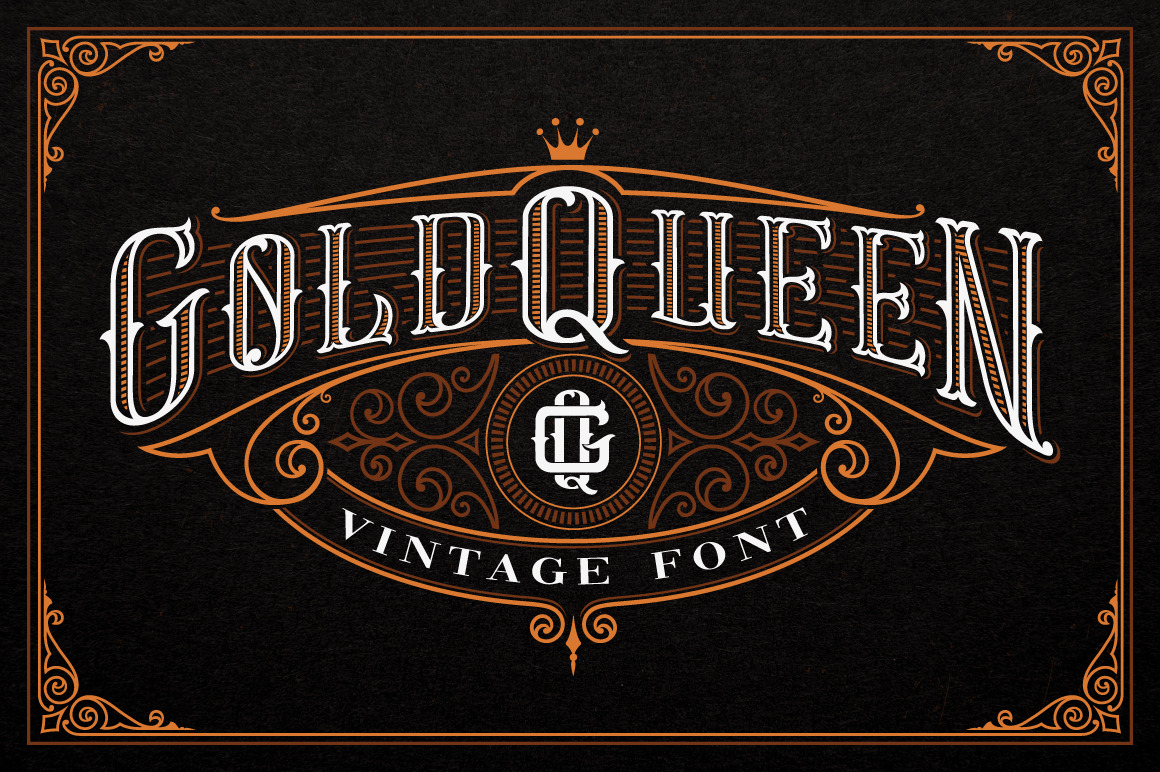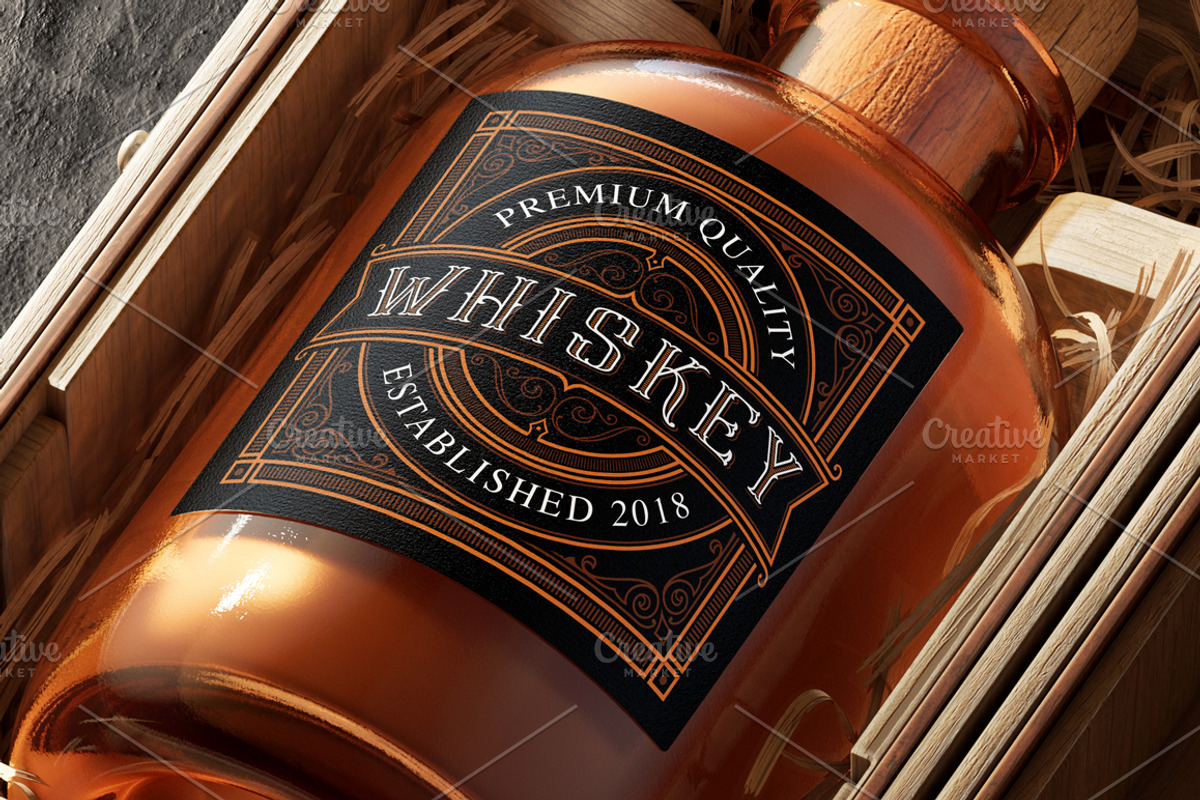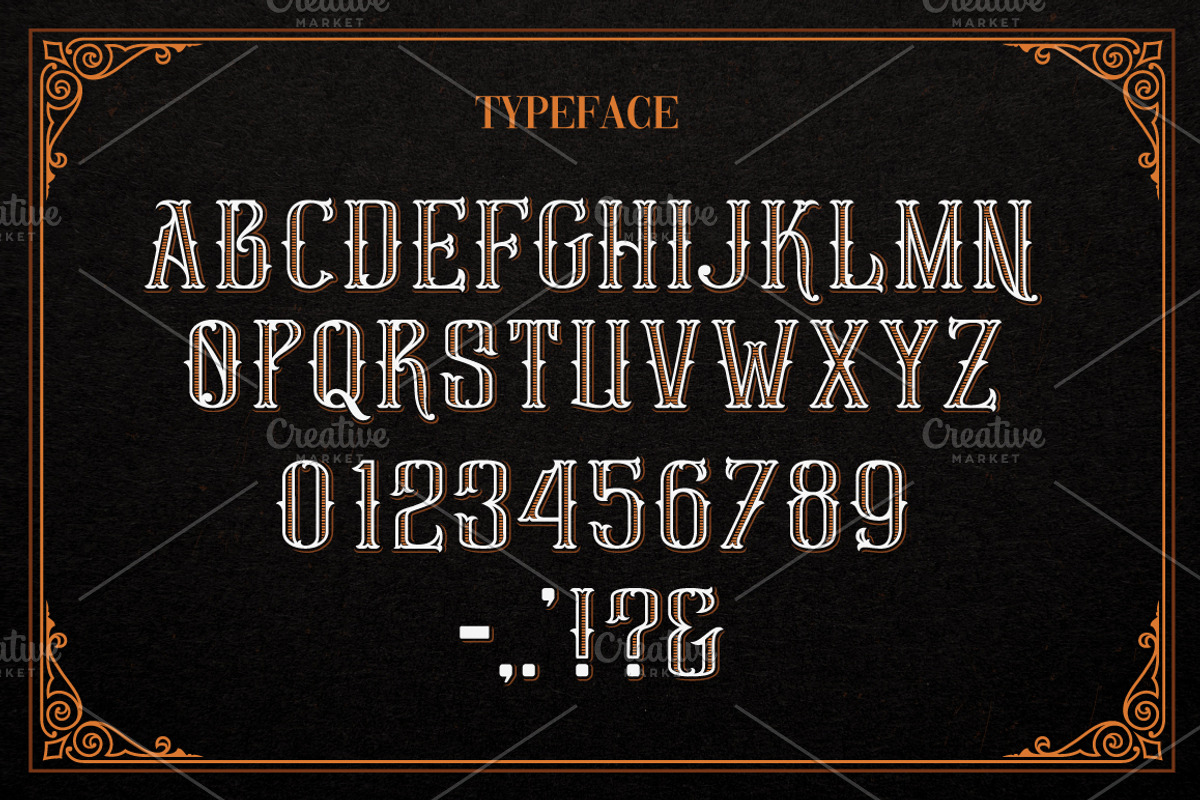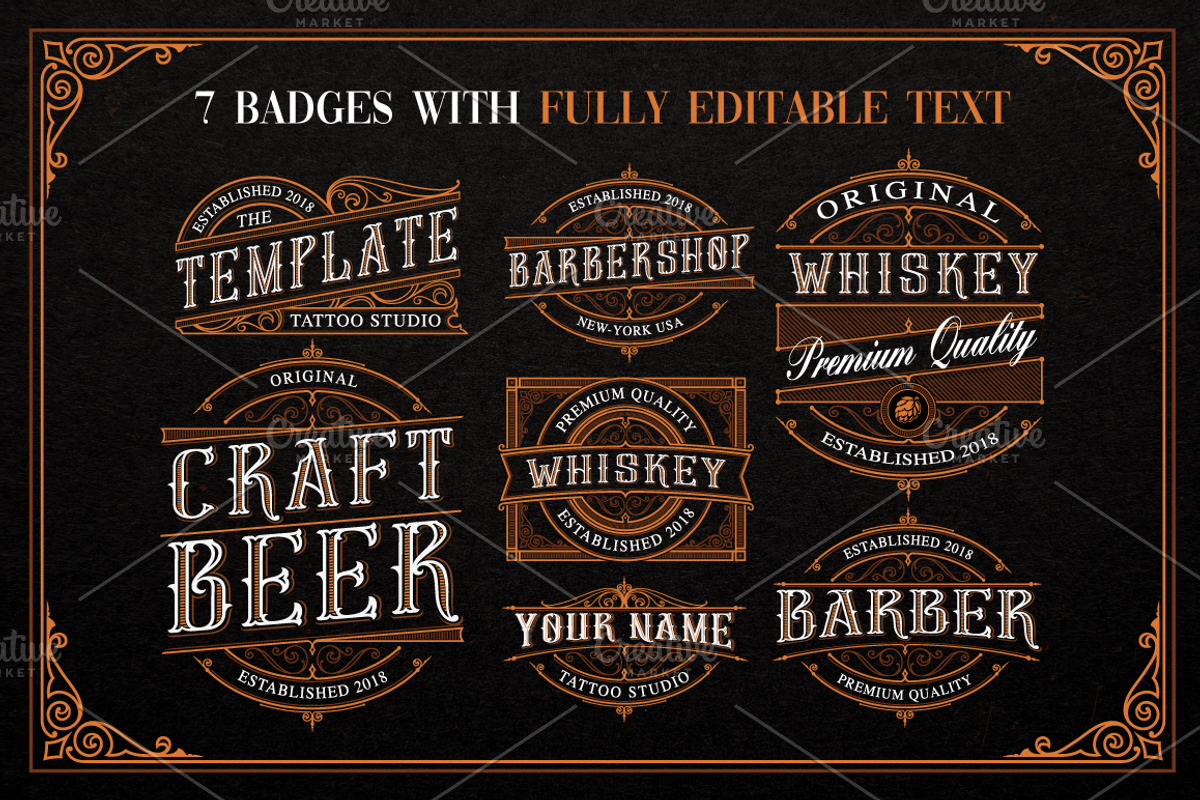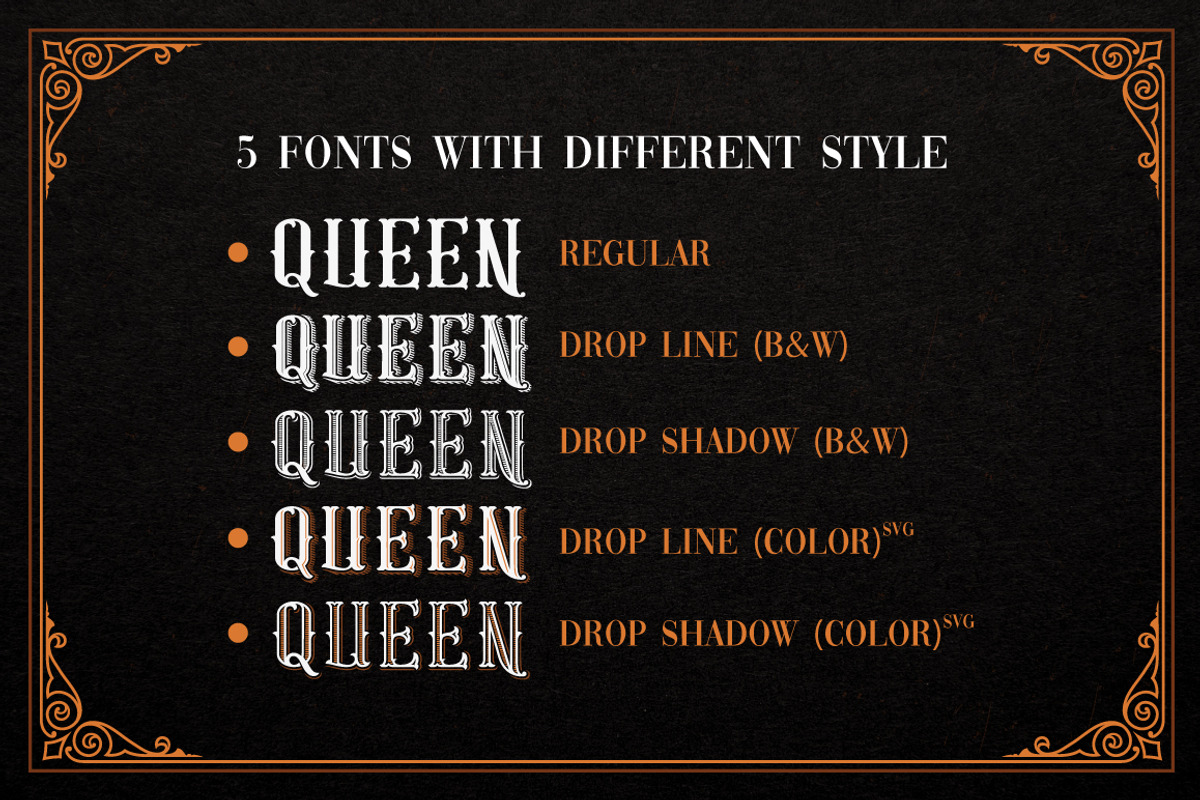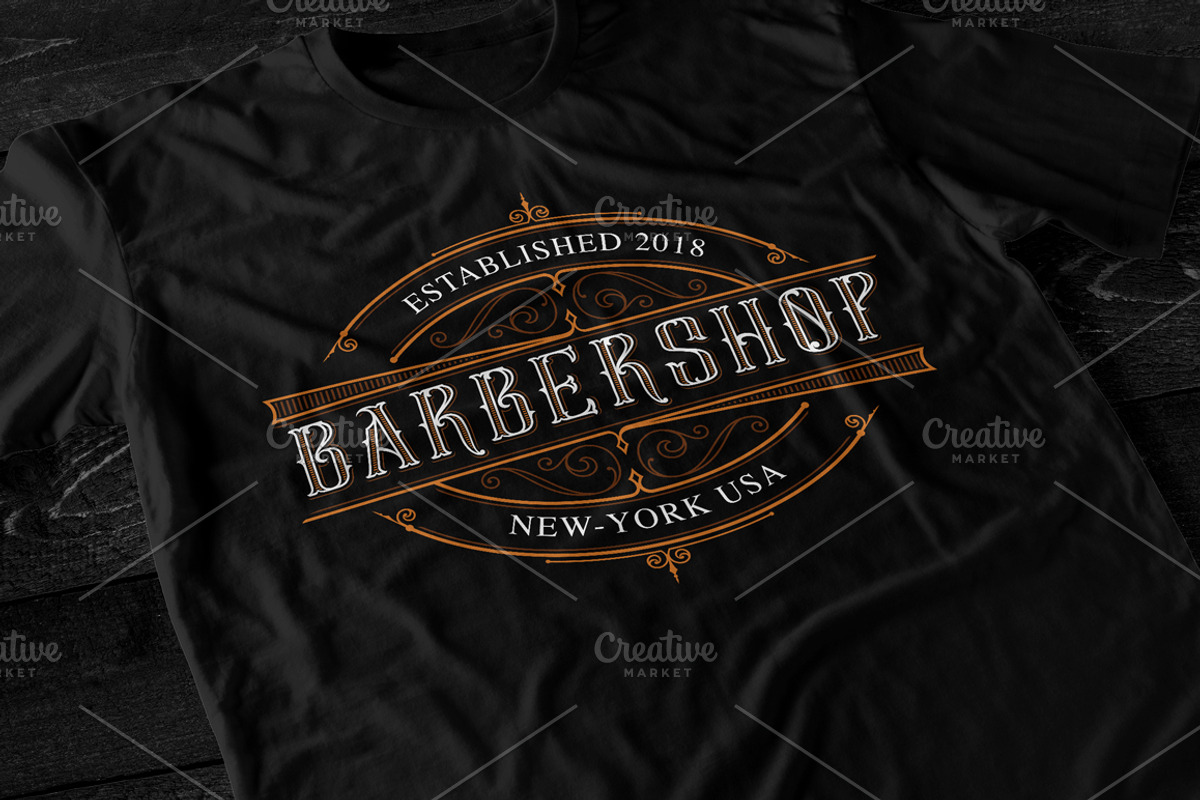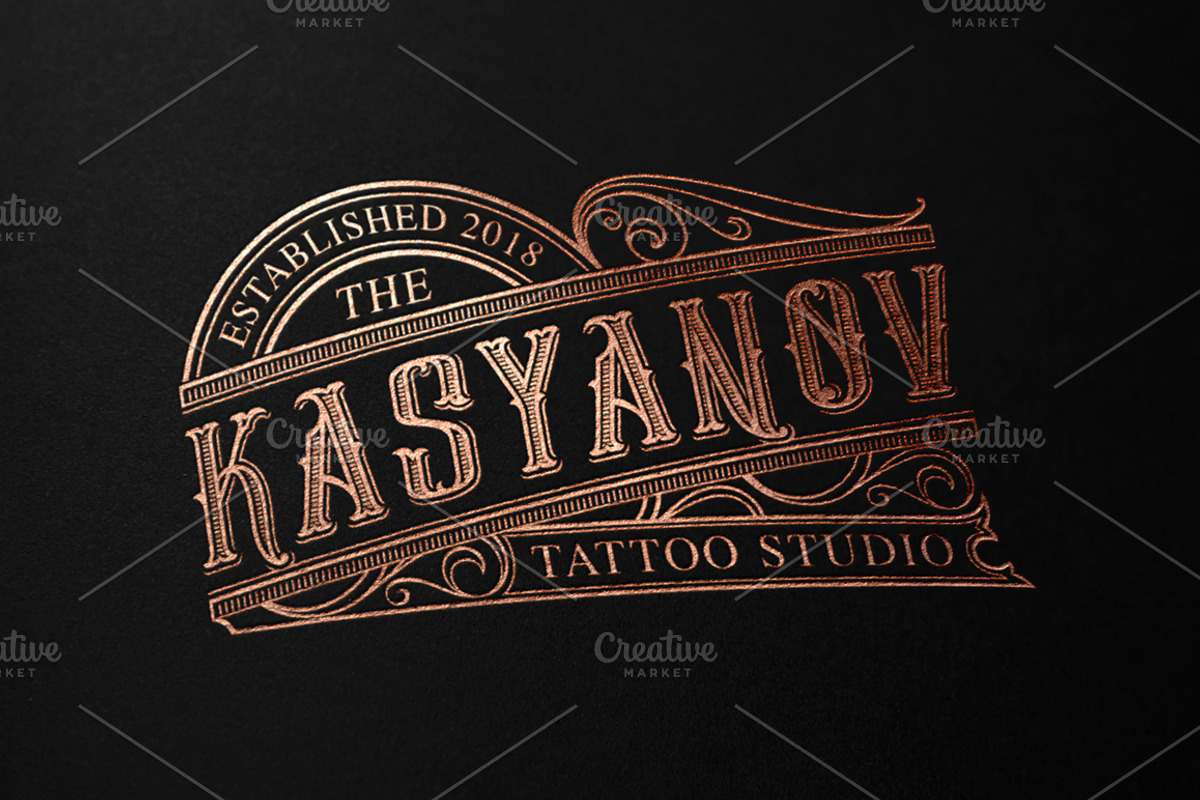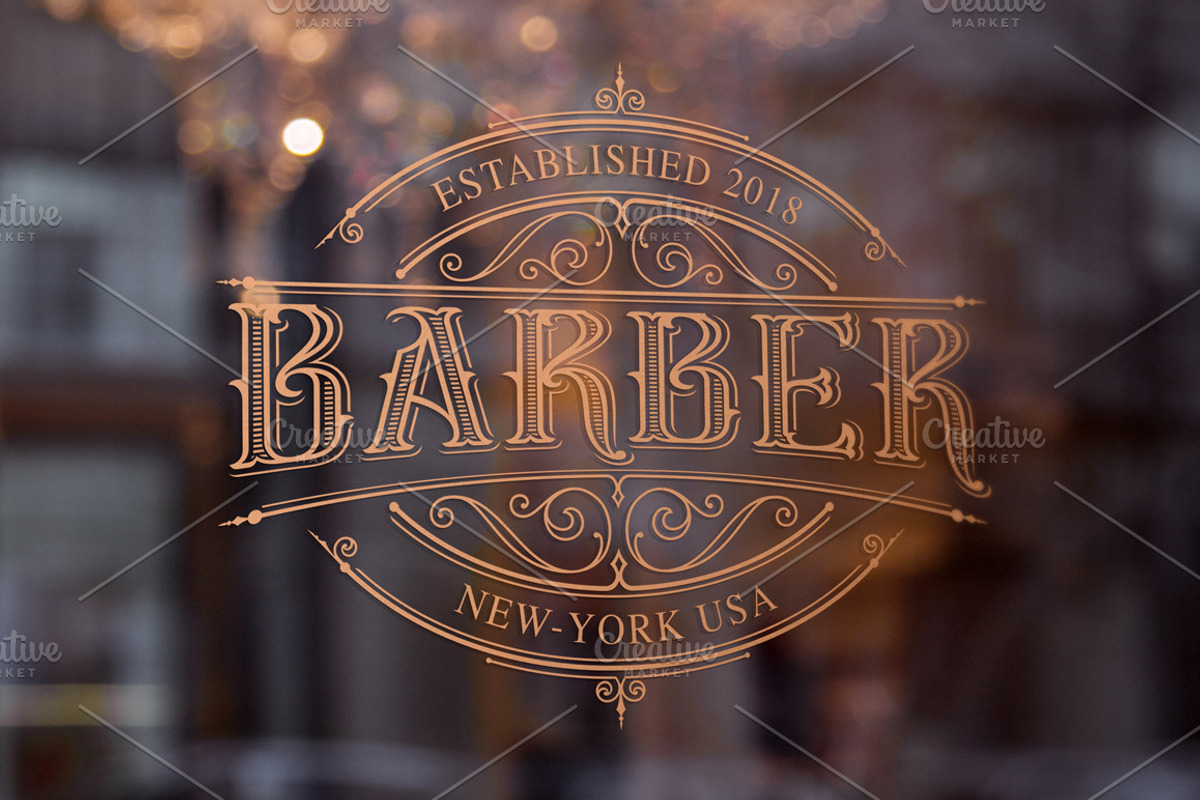
Gold Queen Vintage Font
Gold Queen is a vintage font family with features opentype with extension svg. Perfect for the vintage tattoo studio logos, barbershops, alcohol labels and many other. Includes a full set of character A-Z, numerals, and punctuation.